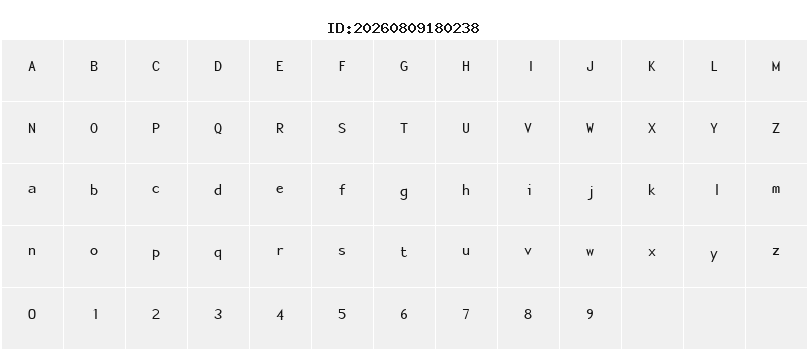
• Font Name: Parameter
Parameter.ttf is a modern, elegant sans-serif font designed for ultimate readability and visual harmony. Perfect for branding, headlines, web design, and print materials.